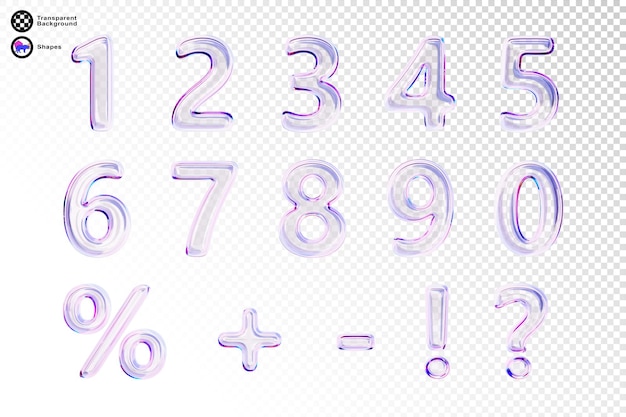
3d glass holographic liquid transparent numbers font from 0 to 9 percent sign question mark exclamation plus and minus symbol Rainbow glossy balloons with gradient texture render